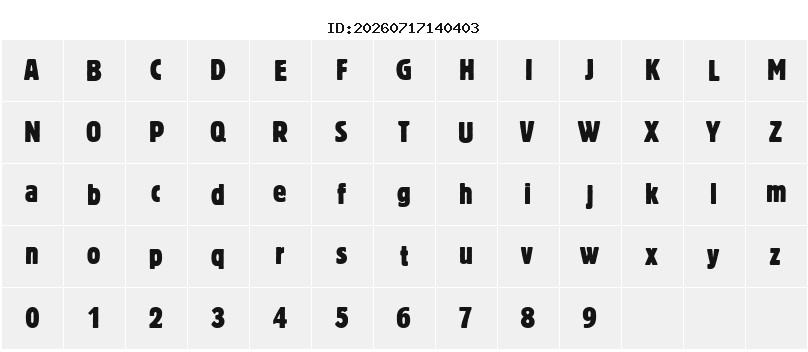
BlockTRegCon.ttf is a modern, elegant sans-serif font designed for ultimate readability and visual harmony. Perfect for branding, headlines, web design, and print materials.